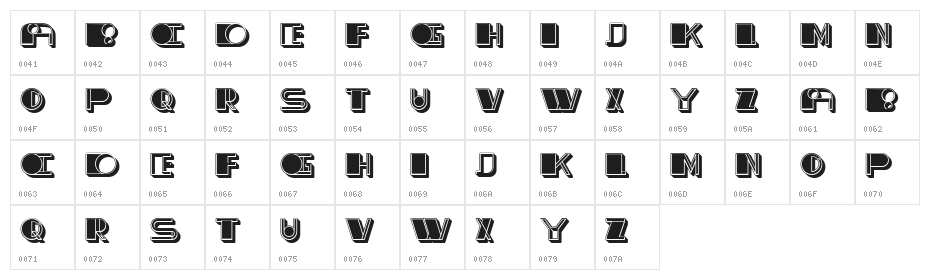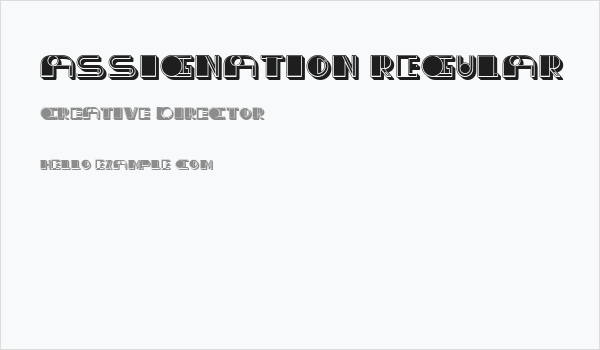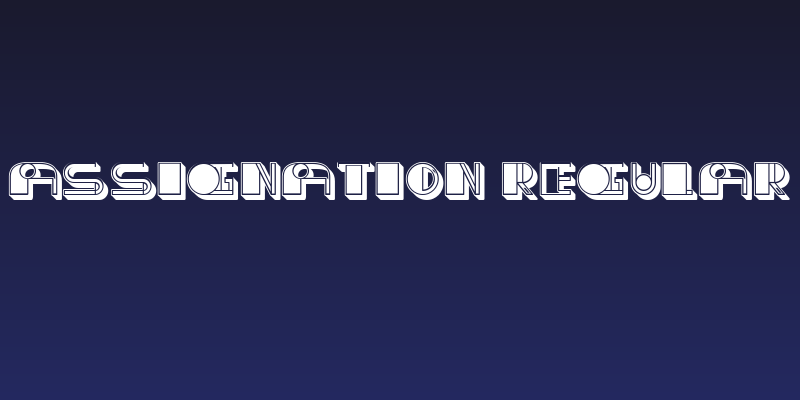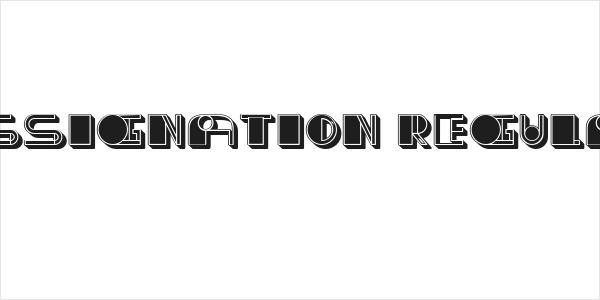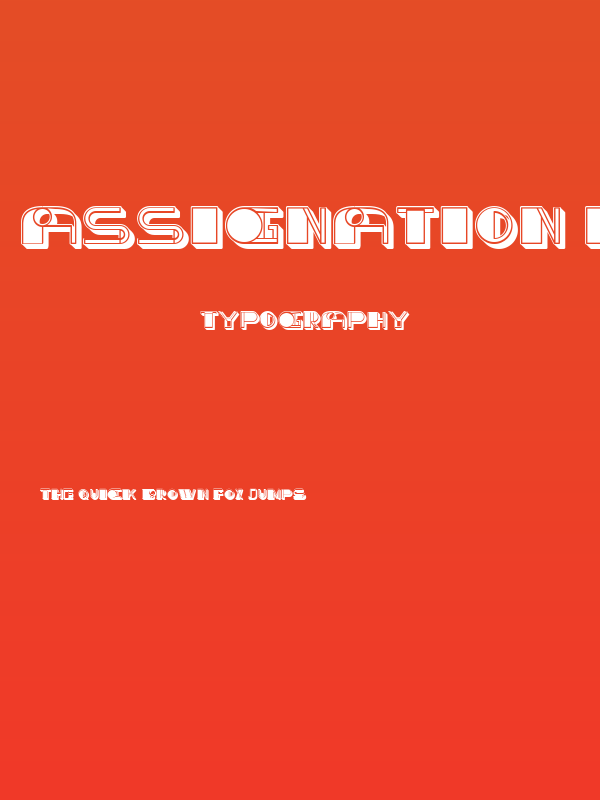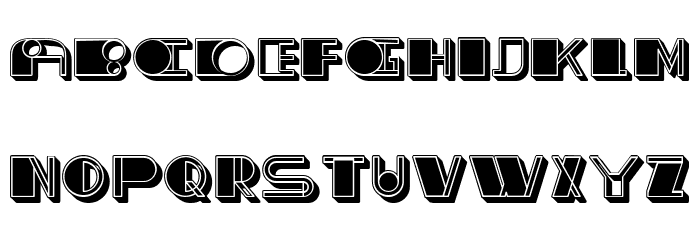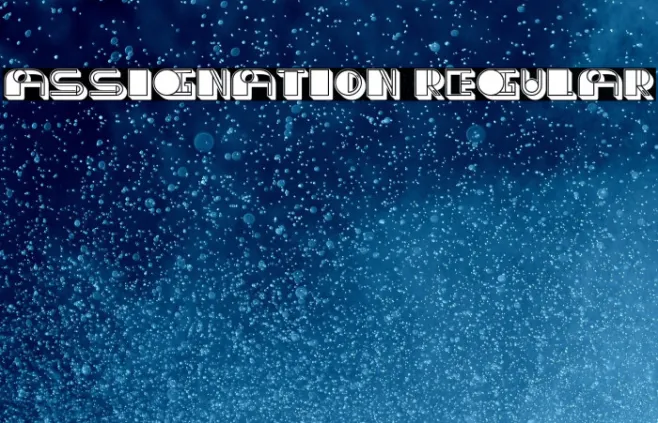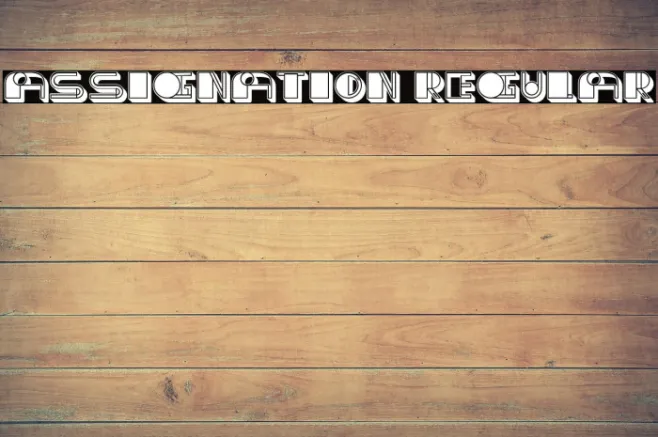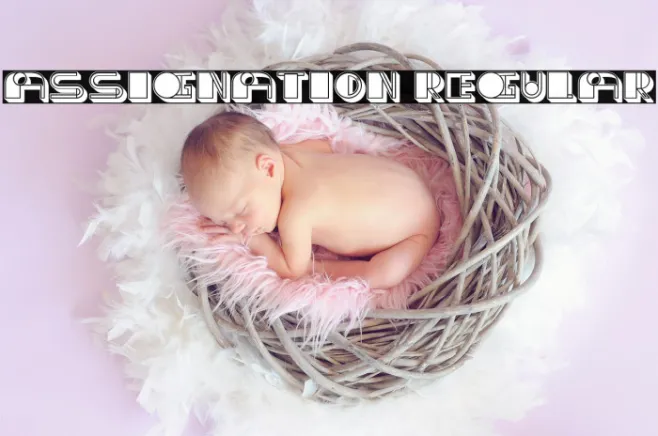
Assignation Regular Font
Assignation Regular Description
This font features a bold, geometric design with a strong emphasis on angular shapes and sharp edges. Each character is constructed with a combination of solid and outlined elements, creating a dynamic and eye-catching appearance. The letters are uniformly wide, giving the font a balanced and structured look. The use of negative space within the characters adds a layer of complexity and depth, making it suitable for modern and futuristic themes. The font's unique style is ideal for projects that require a standout visual impact, such as branding, posters, and digital media.
| Proposed Projects | Ideal for branding, posters, digital media, and any project requiring a modern, impactful design. |